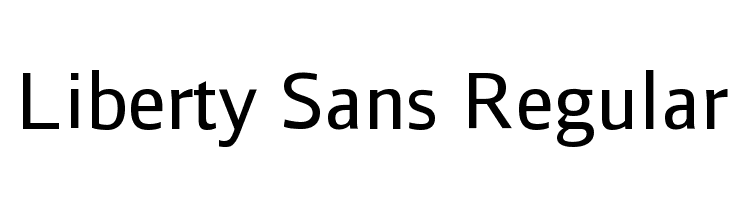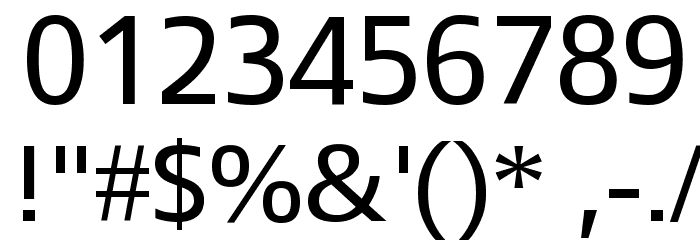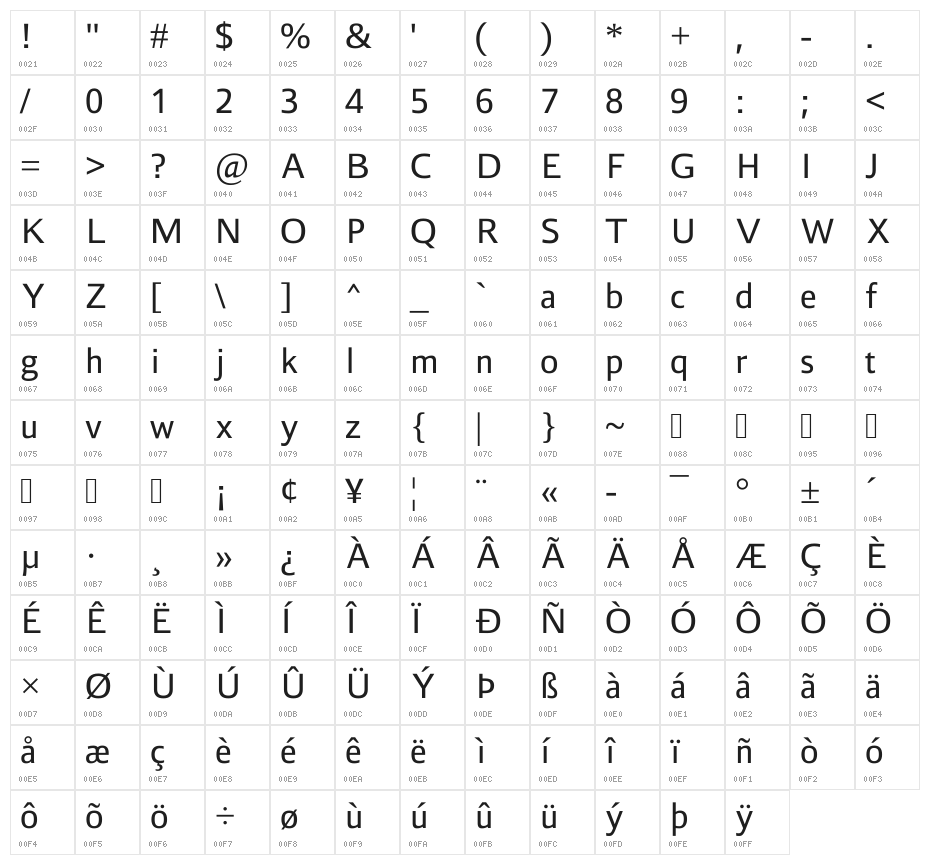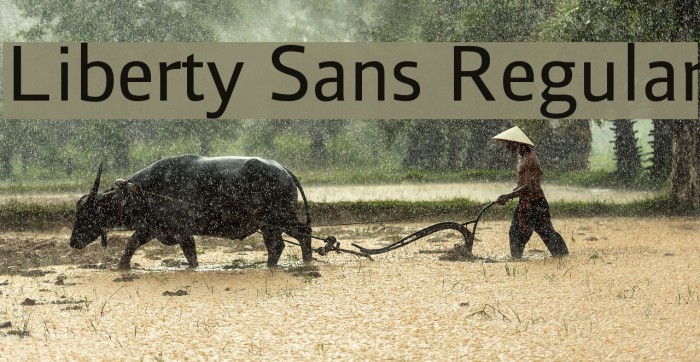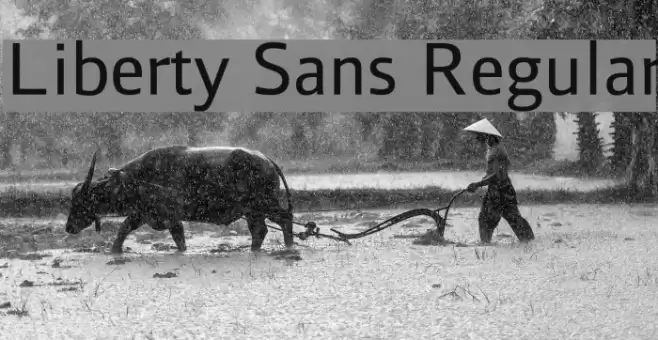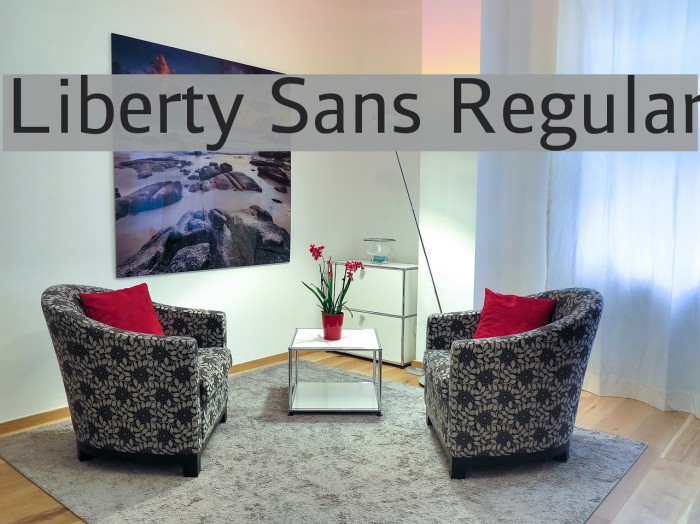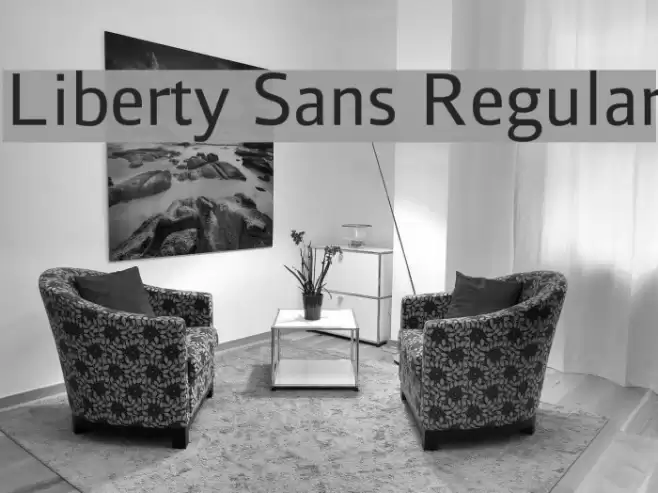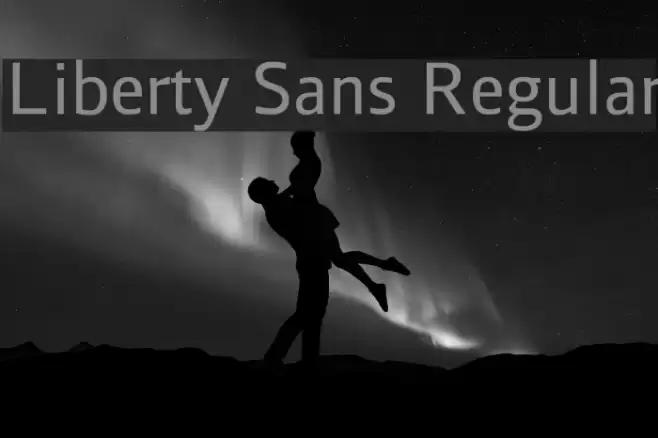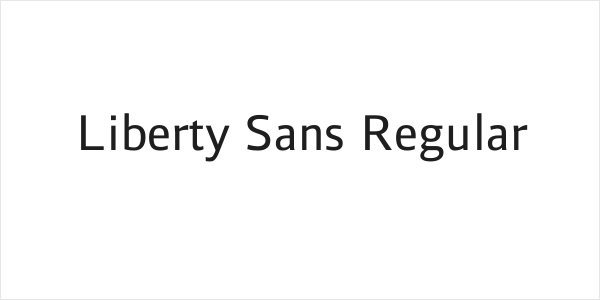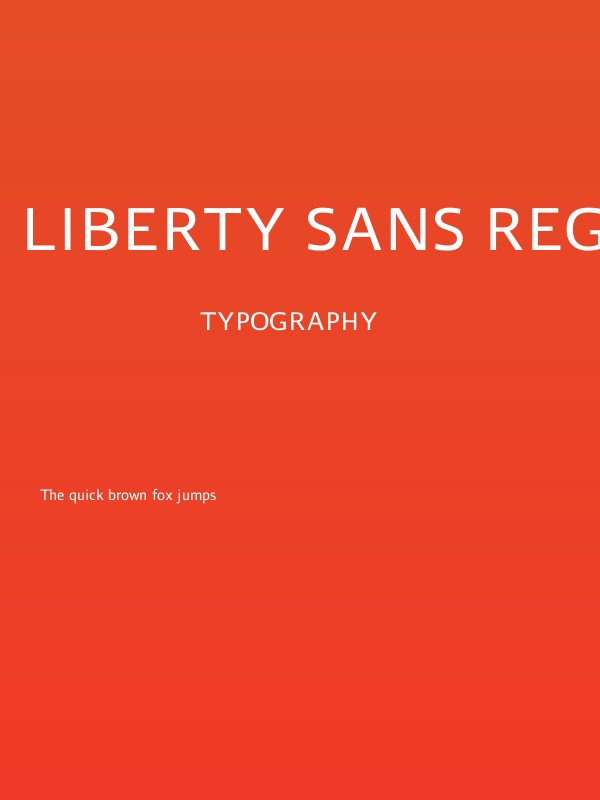
Liberty Sans Regular Font
Liberty Sans Regular Description
This typeface features a clean and modern sans-serif design, characterized by its simplicity and readability. The letters are well-proportioned with a consistent stroke width, making it highly legible across various sizes. The uppercase and lowercase characters maintain a harmonious balance, while the numerals are clear and distinct. Special characters are designed with precision, ensuring they complement the overall aesthetic. The font's straightforward style makes it versatile for a wide range of applications, from digital to print media.